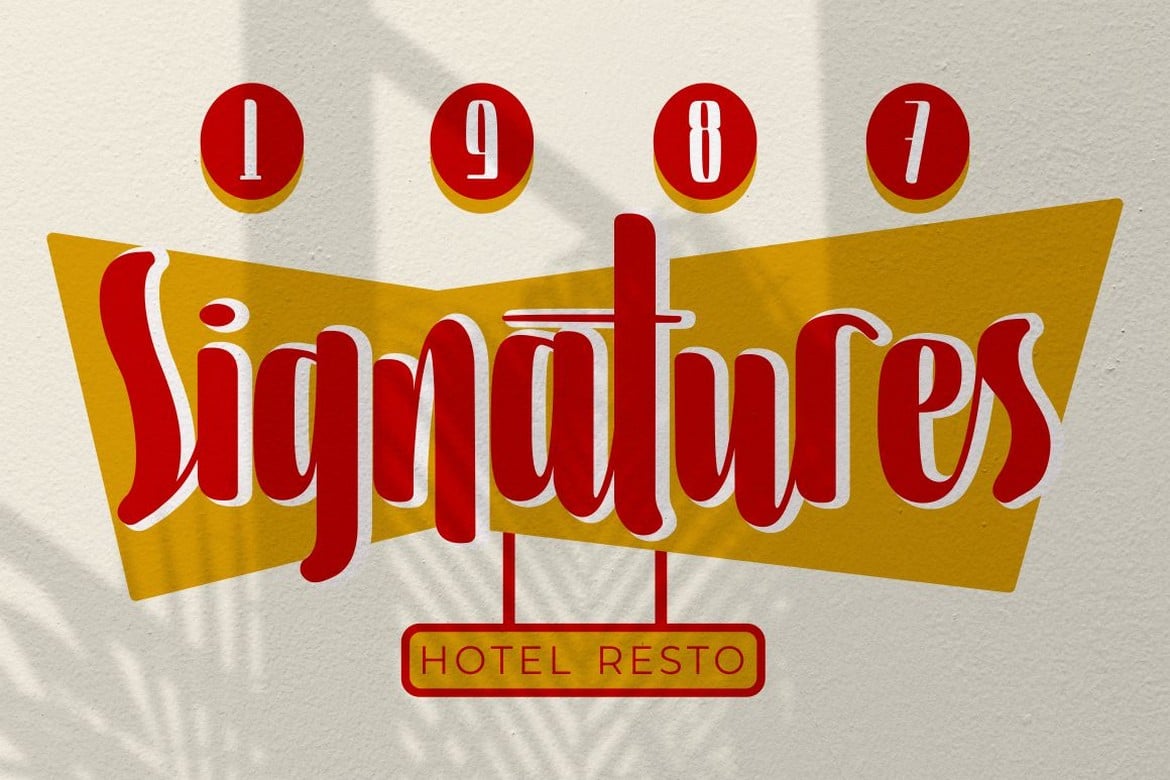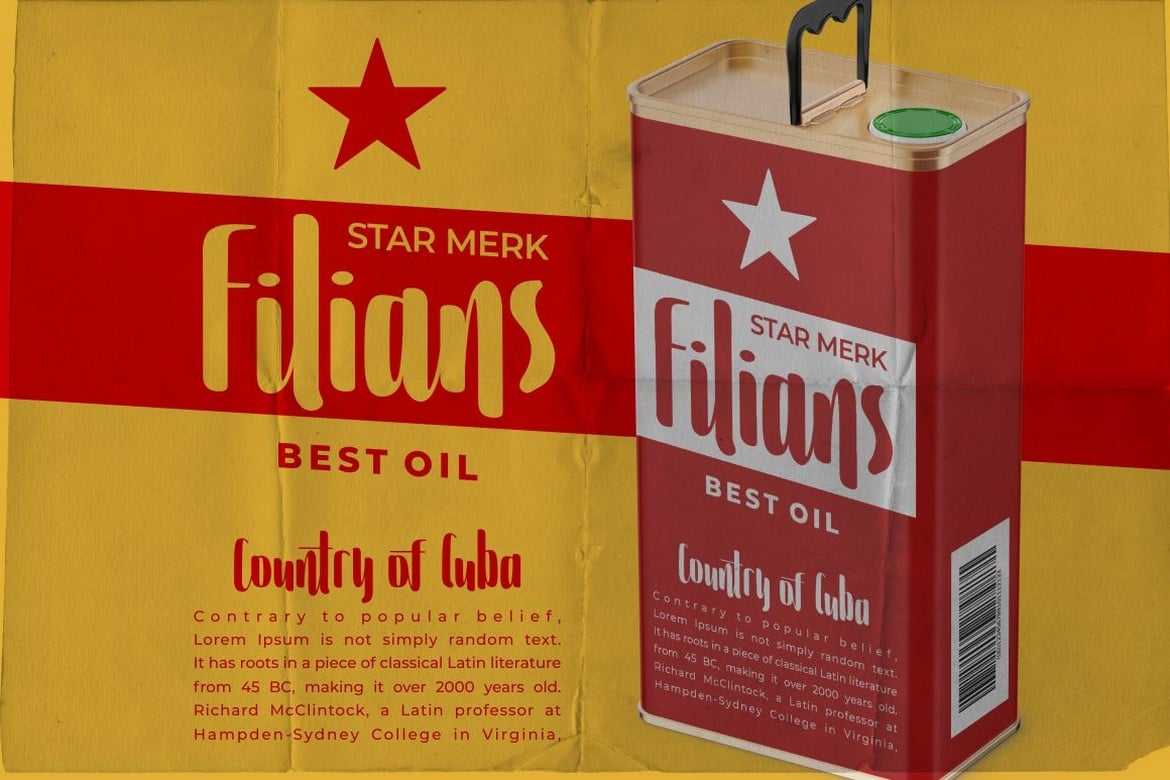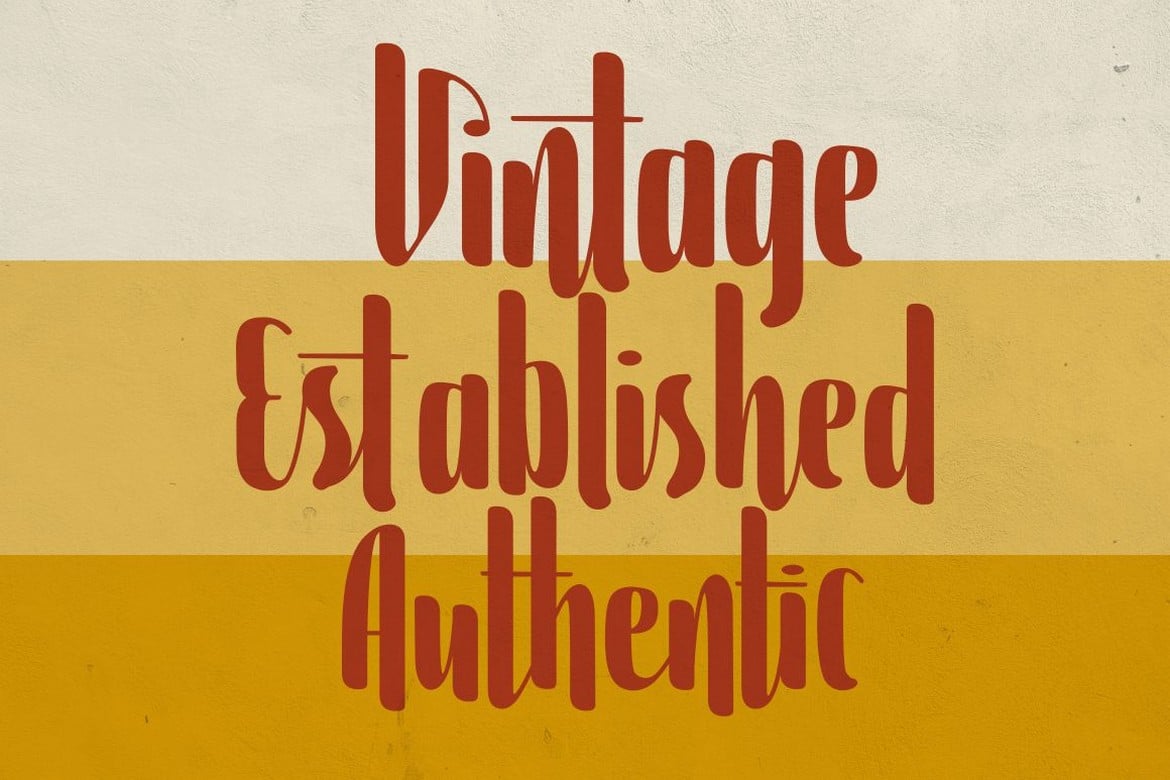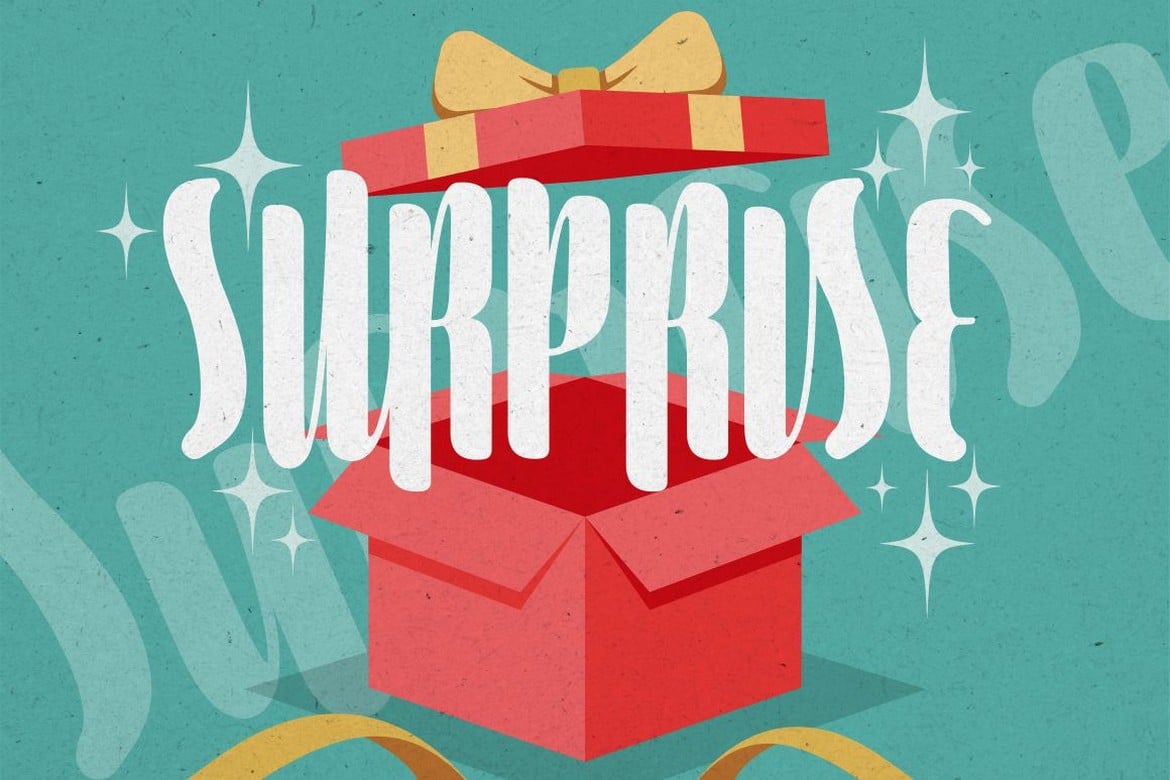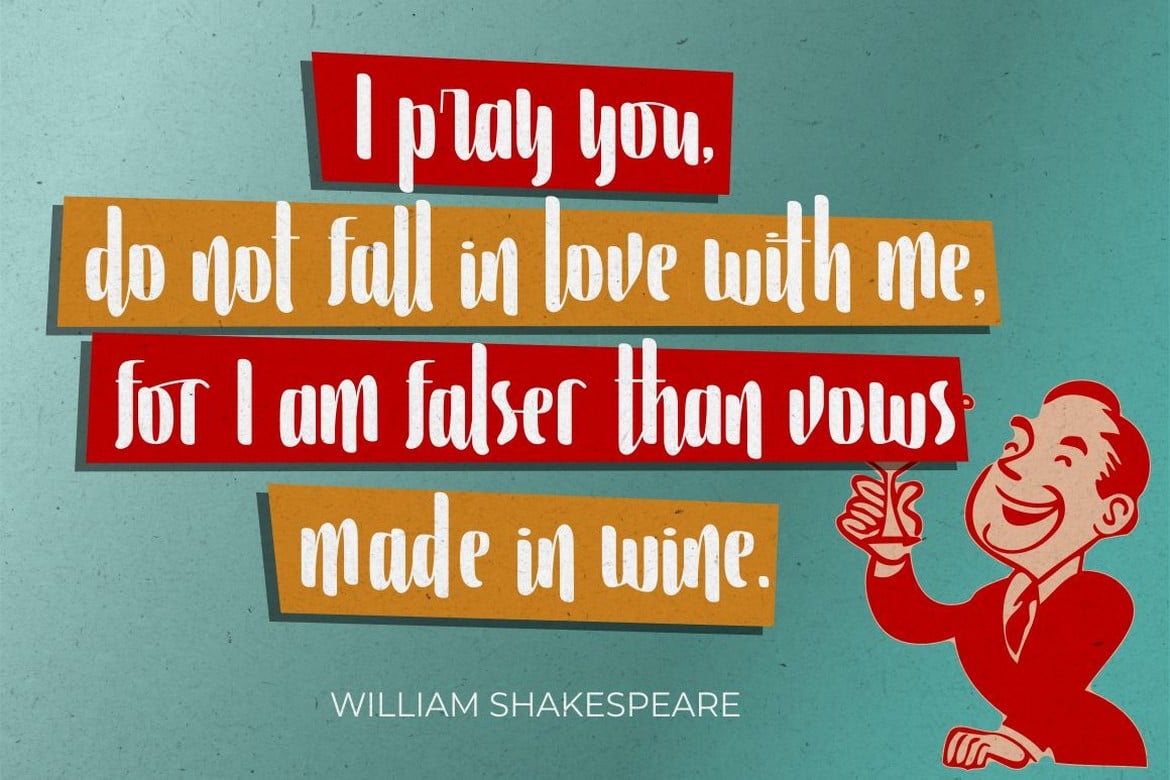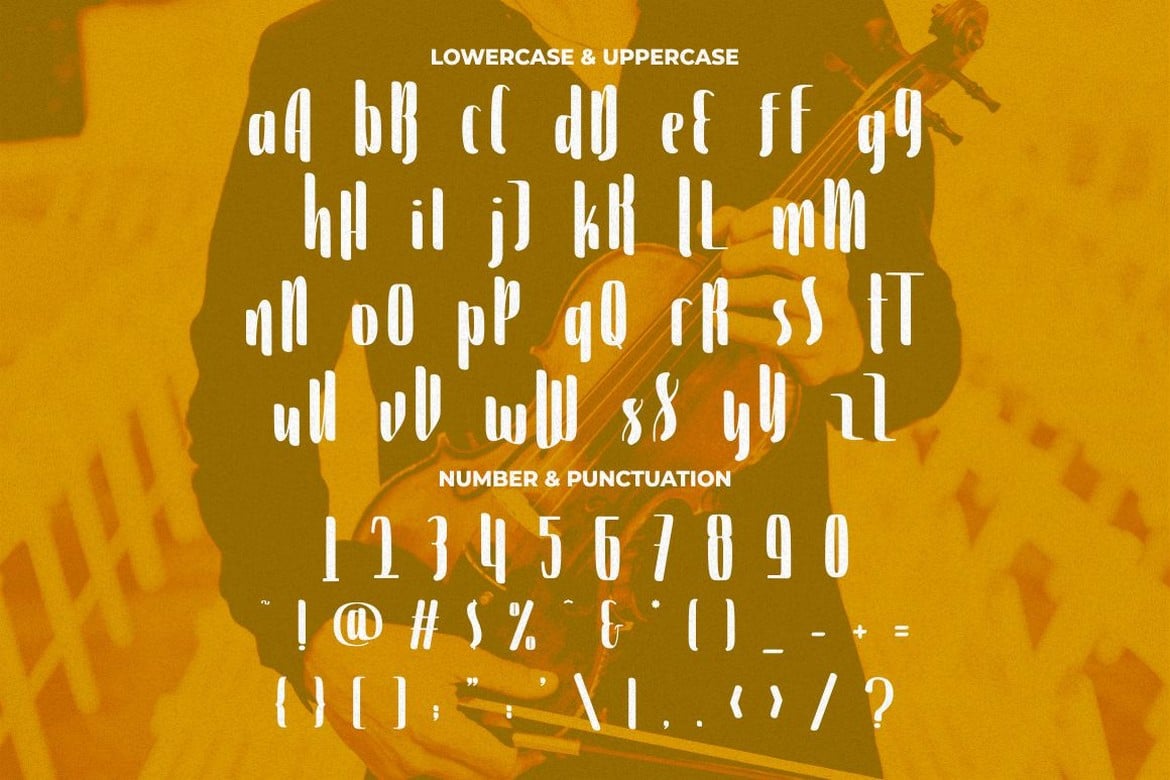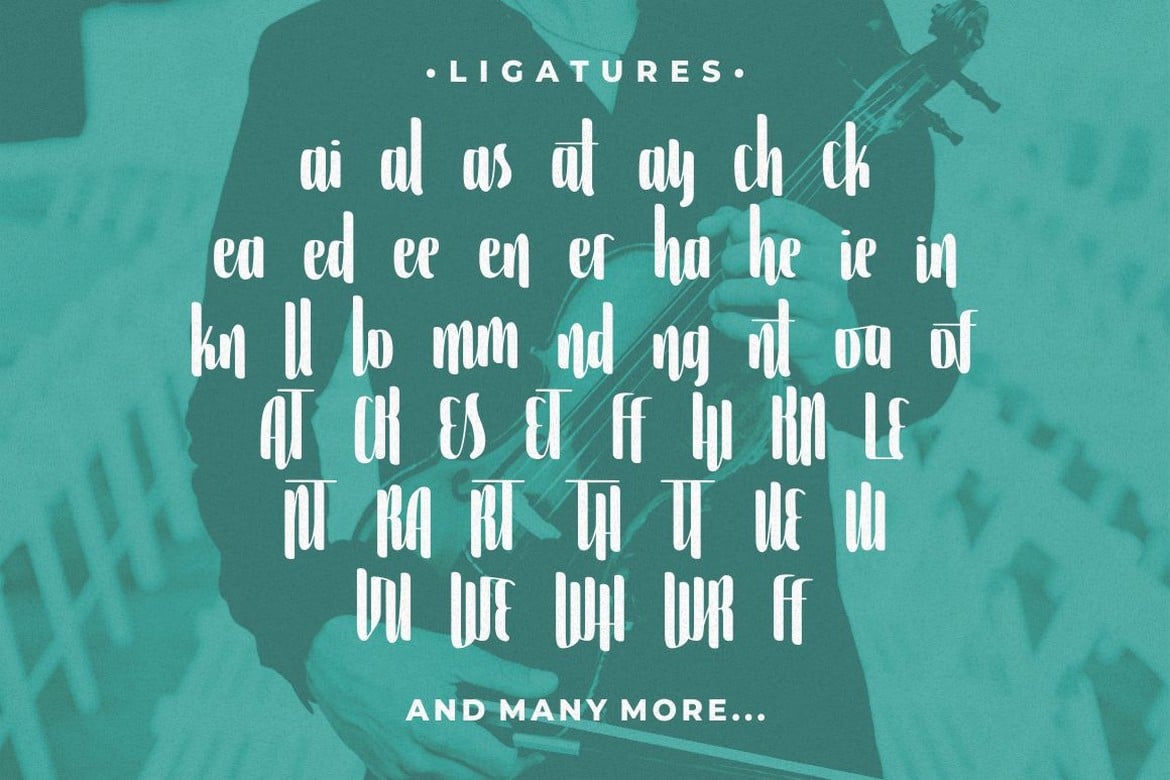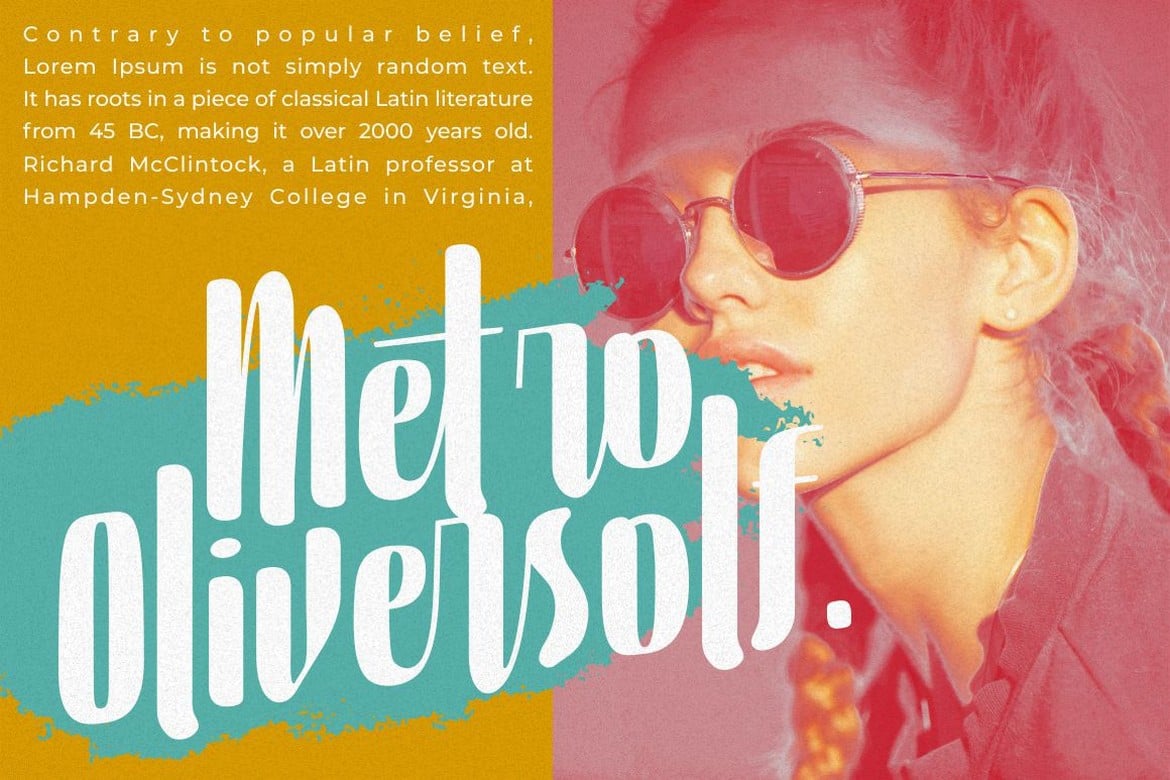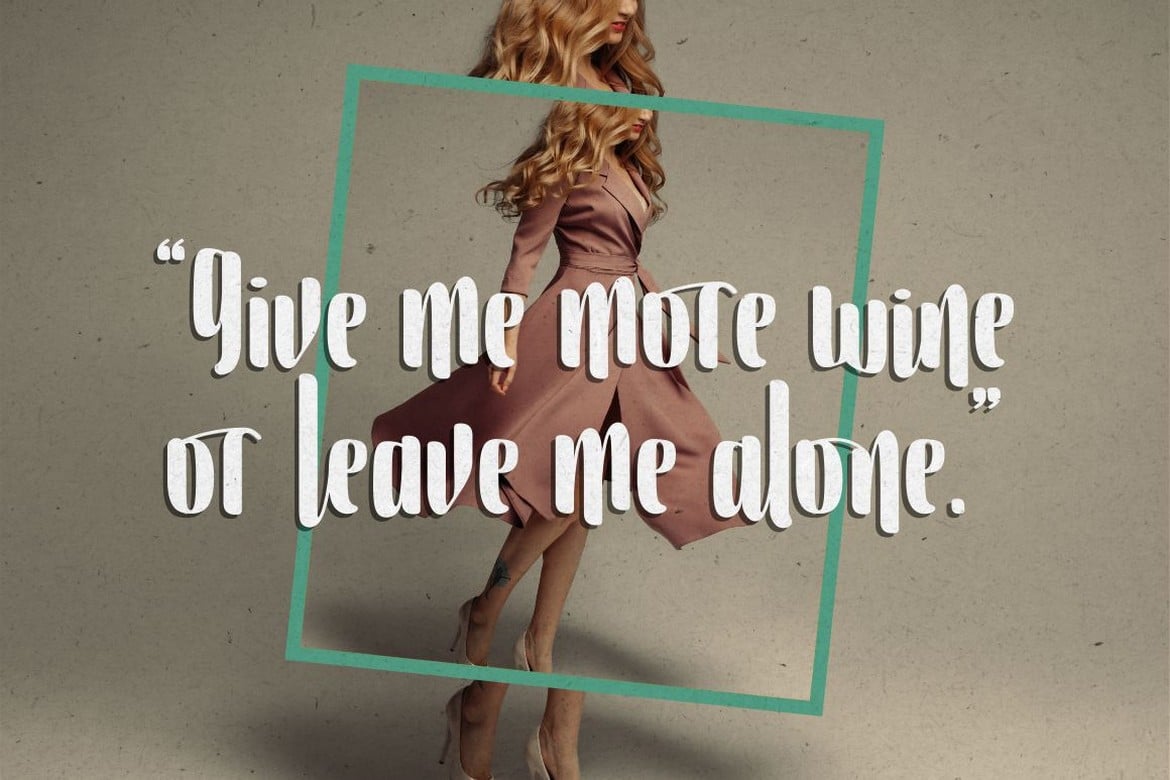
Violinist – Vintage Script Font
Violinist is a vintage script font. As the name suggests, this font is inspired by classic billboards/boards. Besides that, I also combine it with a script style and it’s a little irregular in its shape style. I strengthen the vintage/retro impression with the character ligatures, there are 140 ligatures in this font. But if you want to use this font with a neater impression, you can disable this ligature feature.
This font is perfect for projects with vintage/retro and classic themes. But this font is also suitable for logos, branding, greeting cards, invitation cards, advertisements, titles, healines, book titles, stickers, packaging, quotes, posters, billboards and others.
This font is also support multi language.